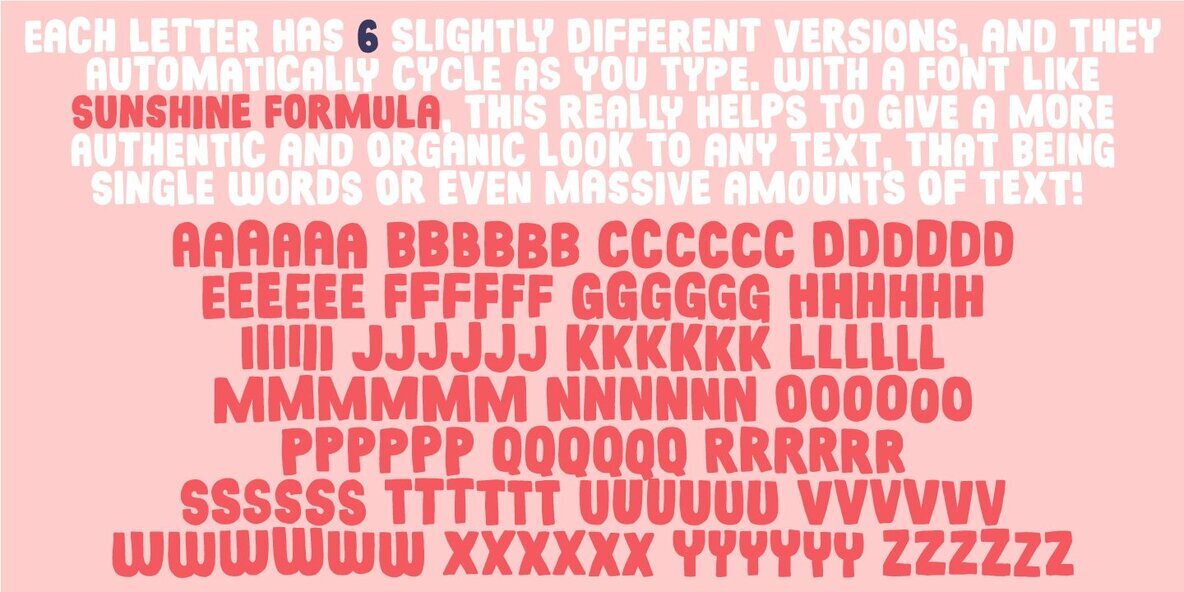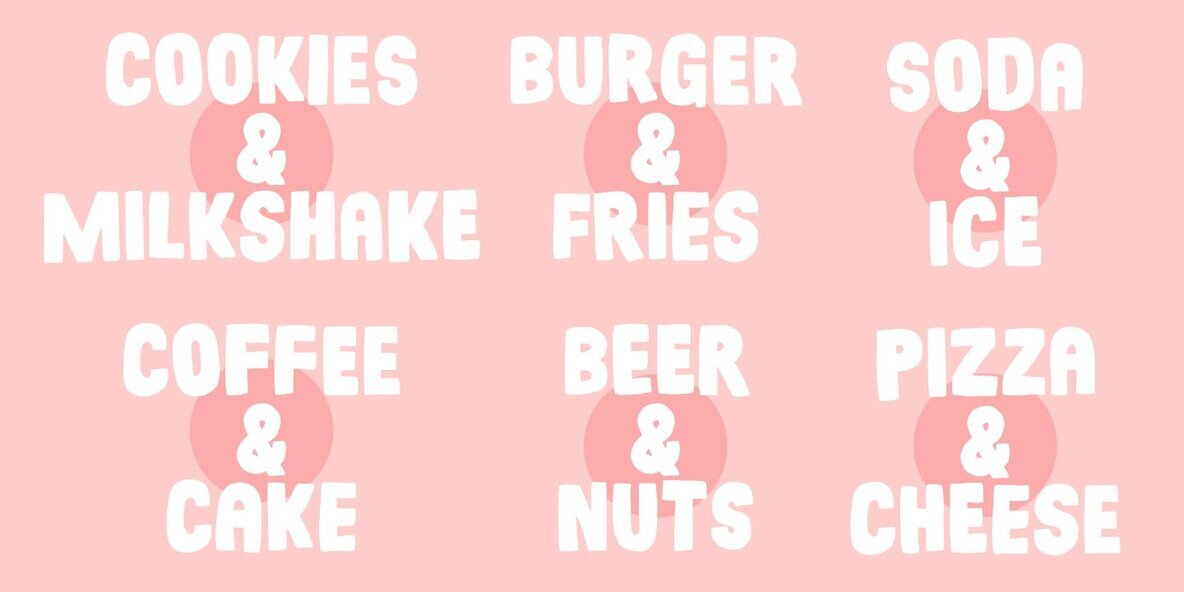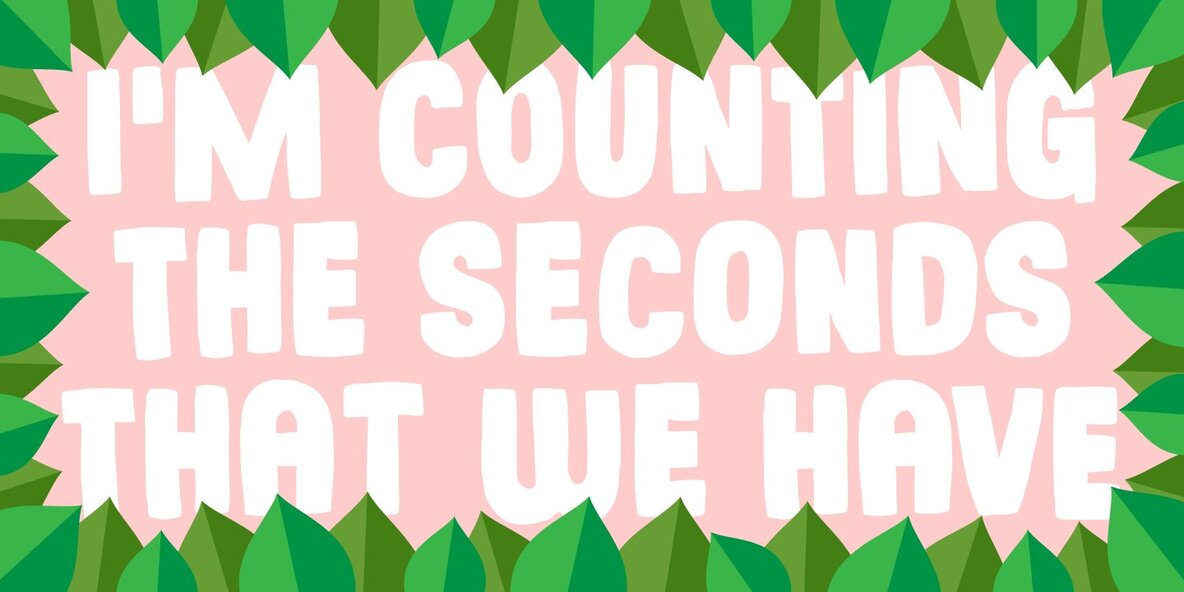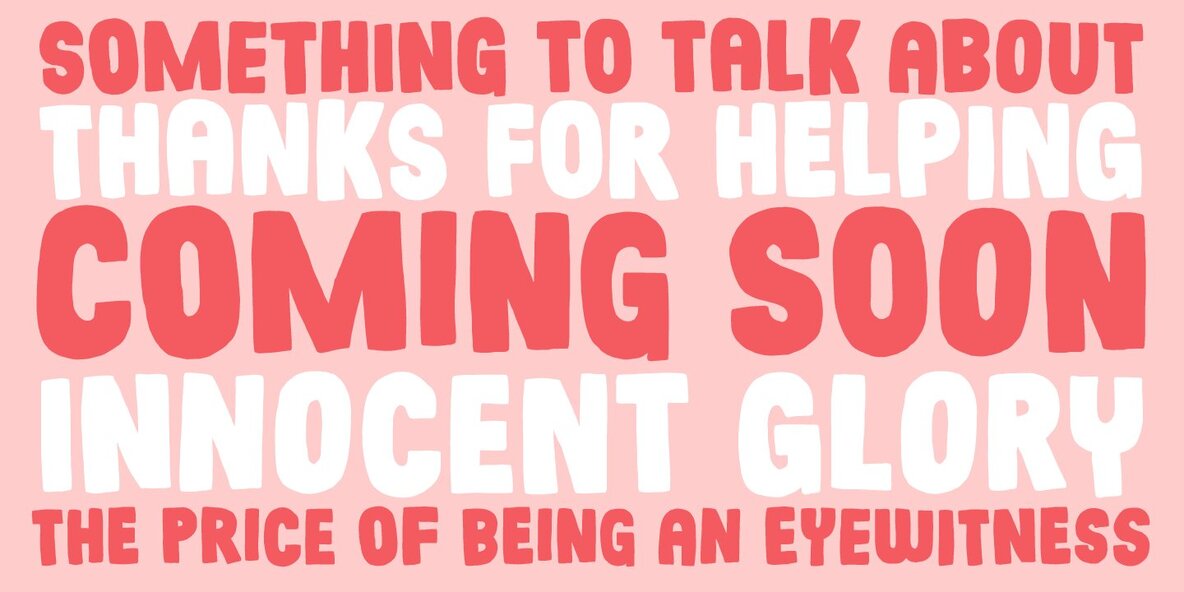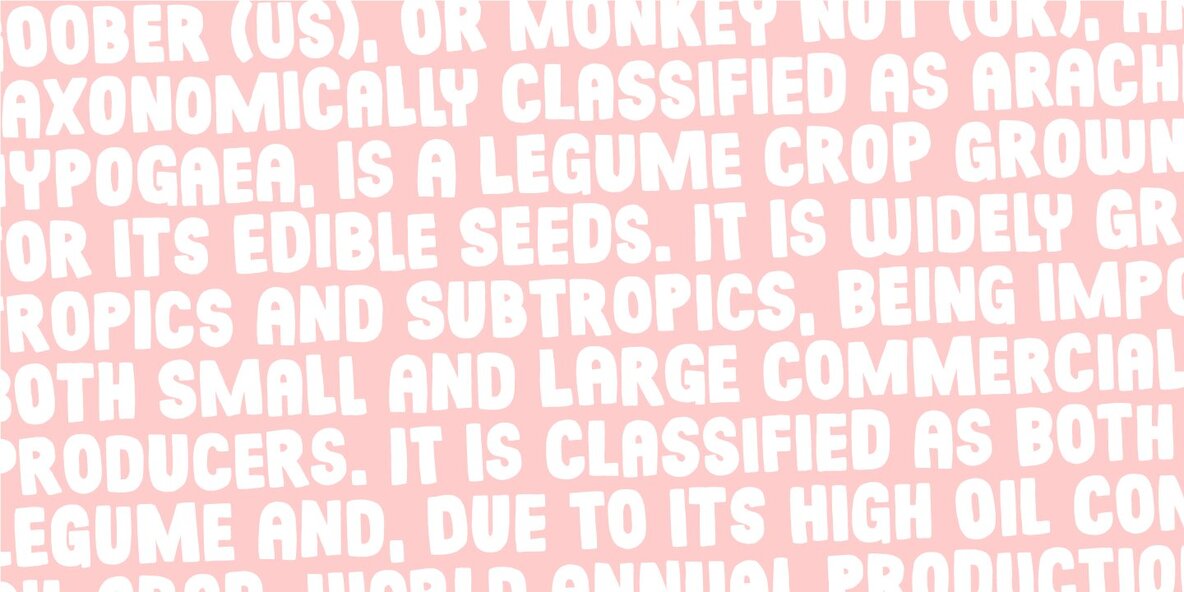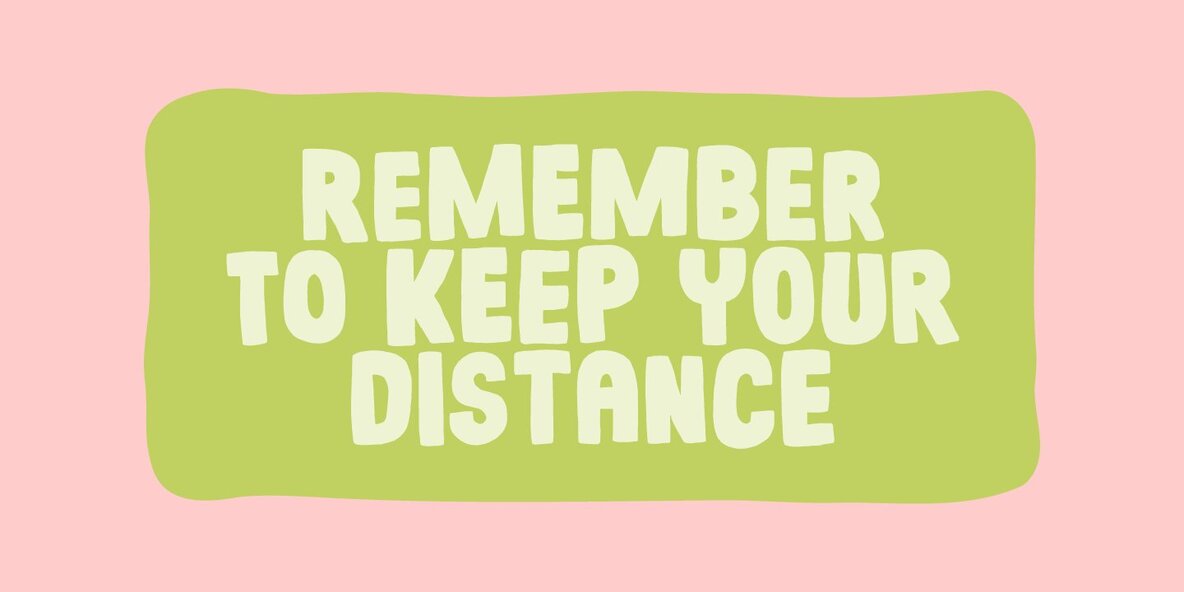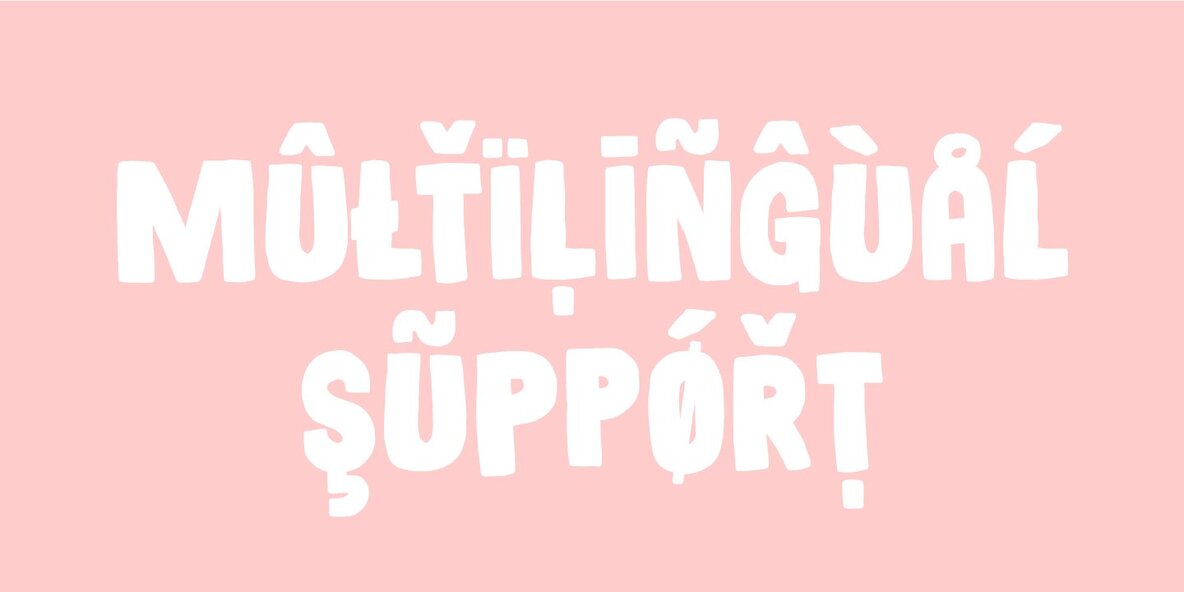
Sunshine Formula Font
Sunshine Formula Regular
Sunshine Formula Italic
Imagine having a formula for sunshine. I mean, in a way to make the sun shine when you want it, or really need it. That could be for a day at the beach, or for the plants in your garden - or even better: make someone happy with a little bit of sunshine! I made this font on the first day of summer in Denmark 2020 - the rounded corners and the soft and easy look of Sunshine Formula, really got me into the "this-is-going-to-be-a-great-summer" mode! :)